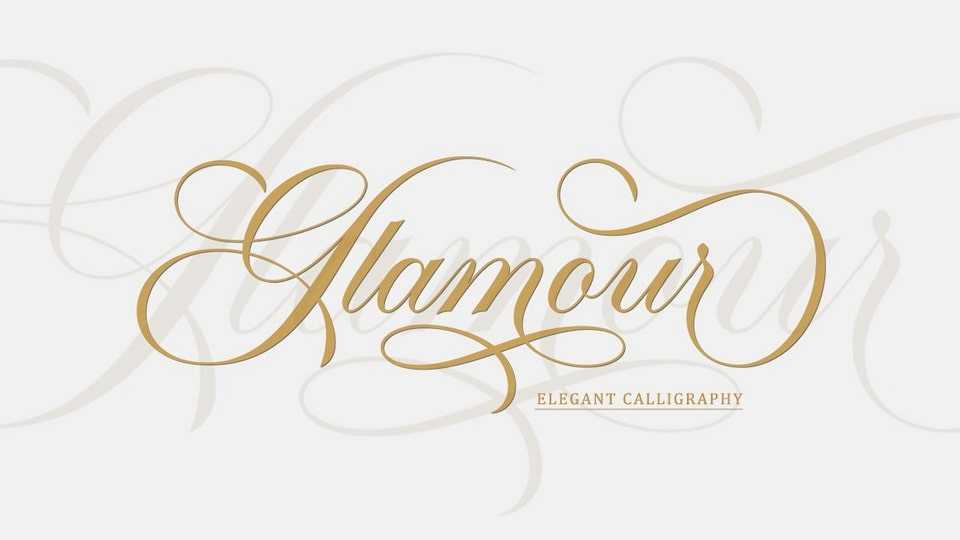
Download Glamour Script font, an elegant typeface, pleasing to the eye, clean, feminine, sensual, glamorous, simple and very easy to read, because of the many luxurious letter connections.
Designer: Master Type